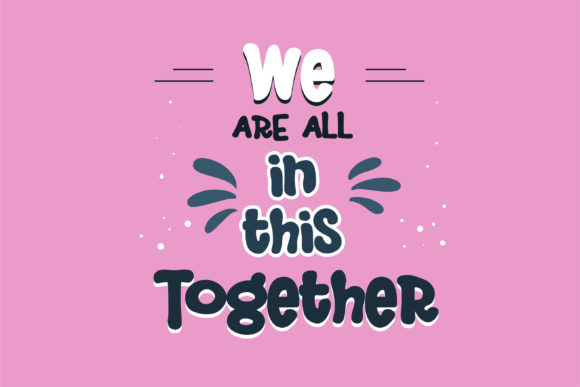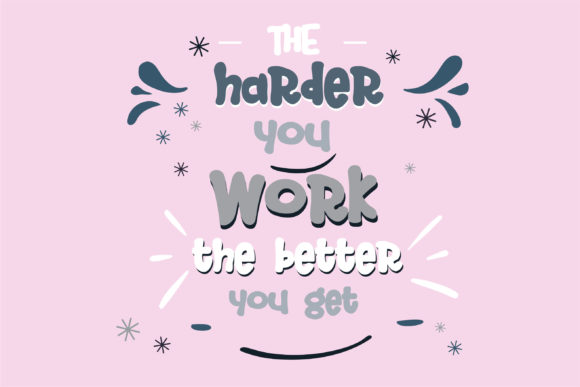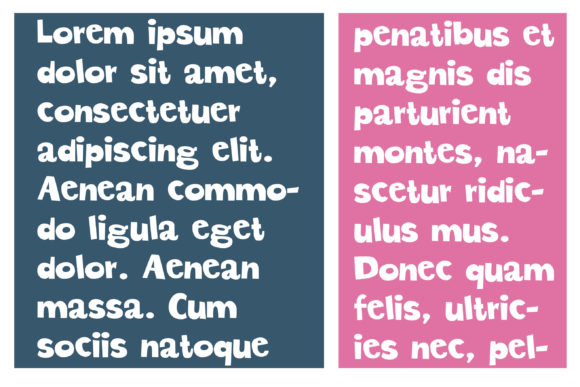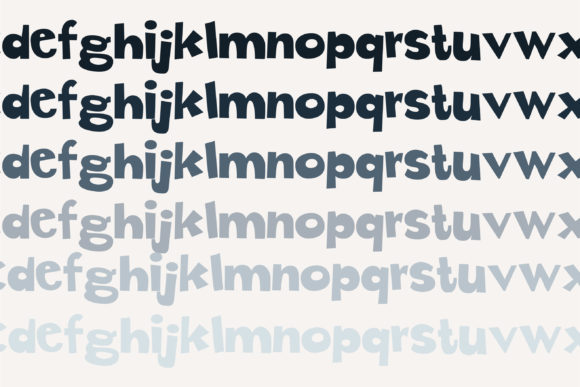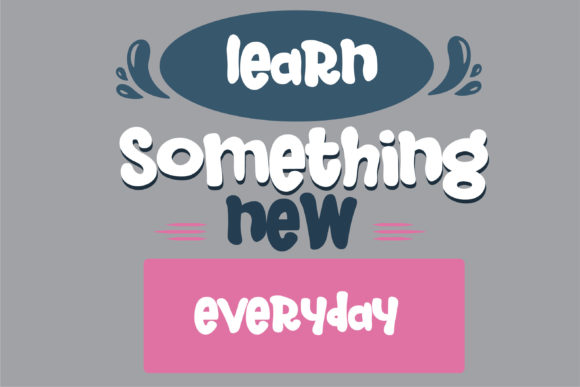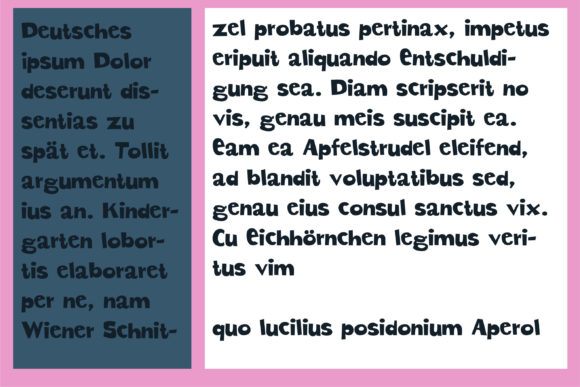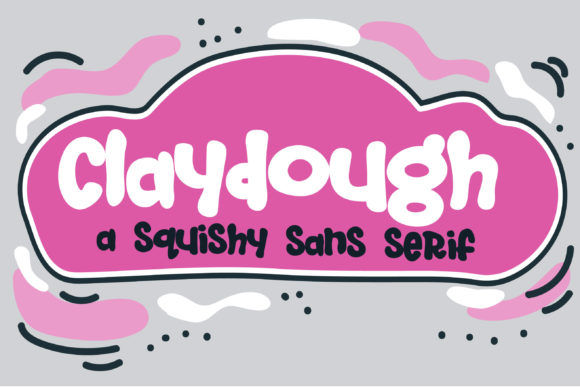
Introducing Claydough Font: The Whimsical Hand-Crafted Display Font
Are you looking for a font that can add a touch of playfulness and youthfulness to your designs? Look no further than Claydough Font! This charming display font is hand-crafted to resemble squishy clay lettering, making it perfect for projects that require a whimsical and creative vibe.
What is Claydough Font?
Claydough Font is a unique and eye-catching display font that is designed to look like it was made from squishy clay. The font’s irregular shapes and textured appearance give it a hand-crafted feel that’s perfect for designers who want to add a personal touch to their work. Whether you’re creating a logo, a title, or a heading, Claydough Font is sure to make your text stand out.
Characteristics of Claydough Font
So, what makes Claydough Font so special? Here are a few of its key characteristics:
• Whimsical design: Claydough Font has a playful, whimsical design that’s perfect for projects that require a youthful vibe.
• Hand-crafted look: The font’s irregular shapes and textured appearance give it a hand-crafted look that’s perfect for designers who want to add a personal touch to their work.
• Display font: Claydough Font is a display font, which means it’s designed to be used at larger sizes, making it perfect for titles, headings, and logos.
• Squishy clay effect: The font’s squishy clay effect gives it a unique and eye-catching appearance that’s sure to grab attention.
Who is Claydough Font for?
Claydough Font is perfect for designers and crafters who want to add a touch of whimsy and playfulness to their work. Here are a few examples of who might find this font useful:
• Graphic designers: Graphic designers who want to create eye-catching logos, titles, and headings will love Claydough Font.
• Crafters: Crafters who make handmade products, such as jewelry, candles, or soap, will appreciate the font’s whimsical and hand-crafted look.
• Paper crafters: Paper crafters who create cards, scrapbook pages, and other paper crafts will love the font’s playful and textured appearance.
• Small business owners: Small business owners who want to create a unique and memorable brand identity will appreciate Claydough Font’s distinctive look.
Claydough Font is a unique and eye-catching display font that’s perfect for designers and crafters who want to add a touch of whimsy and playfulness to their work. With its hand-crafted look and squishy clay effect, this font is sure to grab attention and make your text stand out. So why not give Claydough Font a try and see how it can add a youthful vibe to your designs?